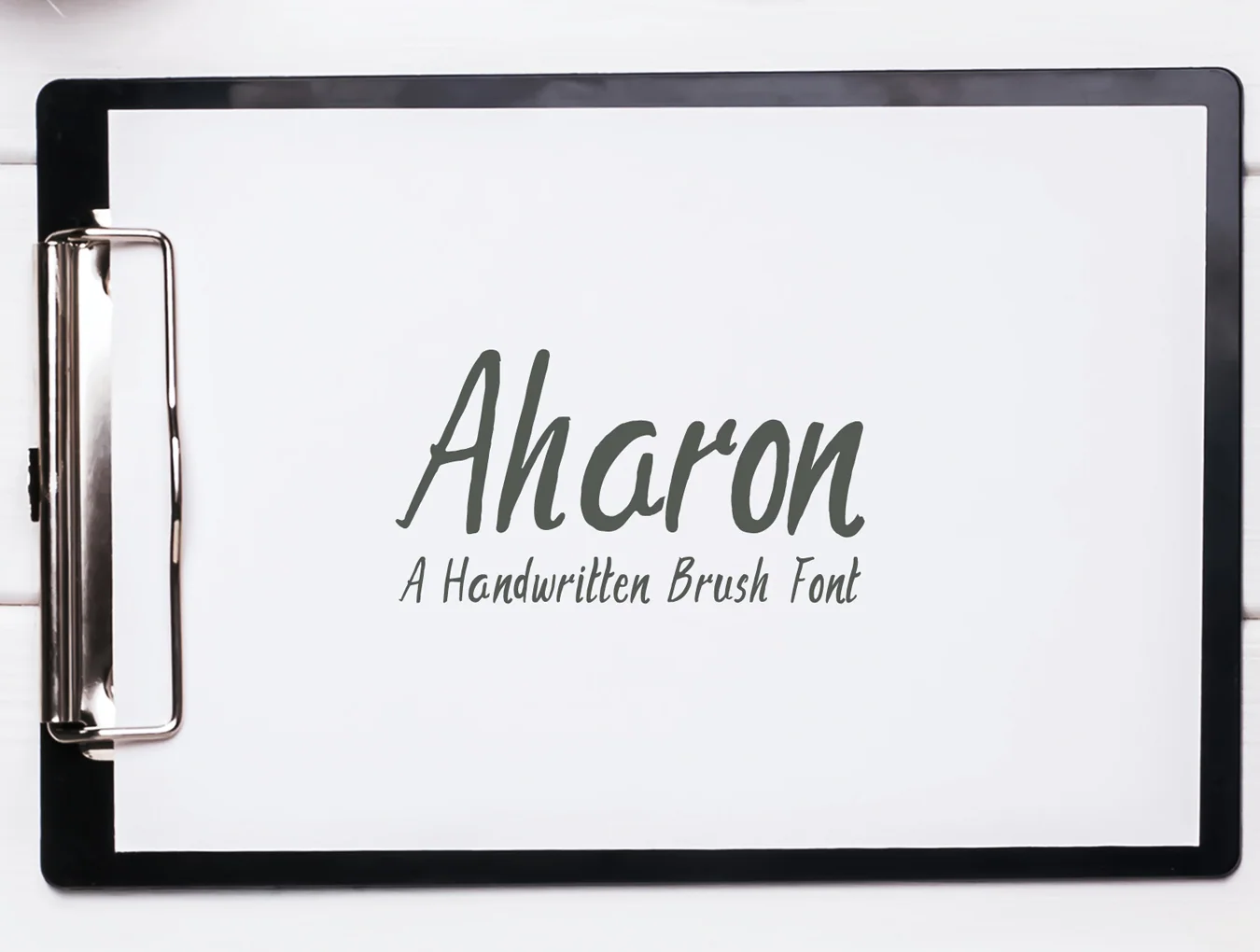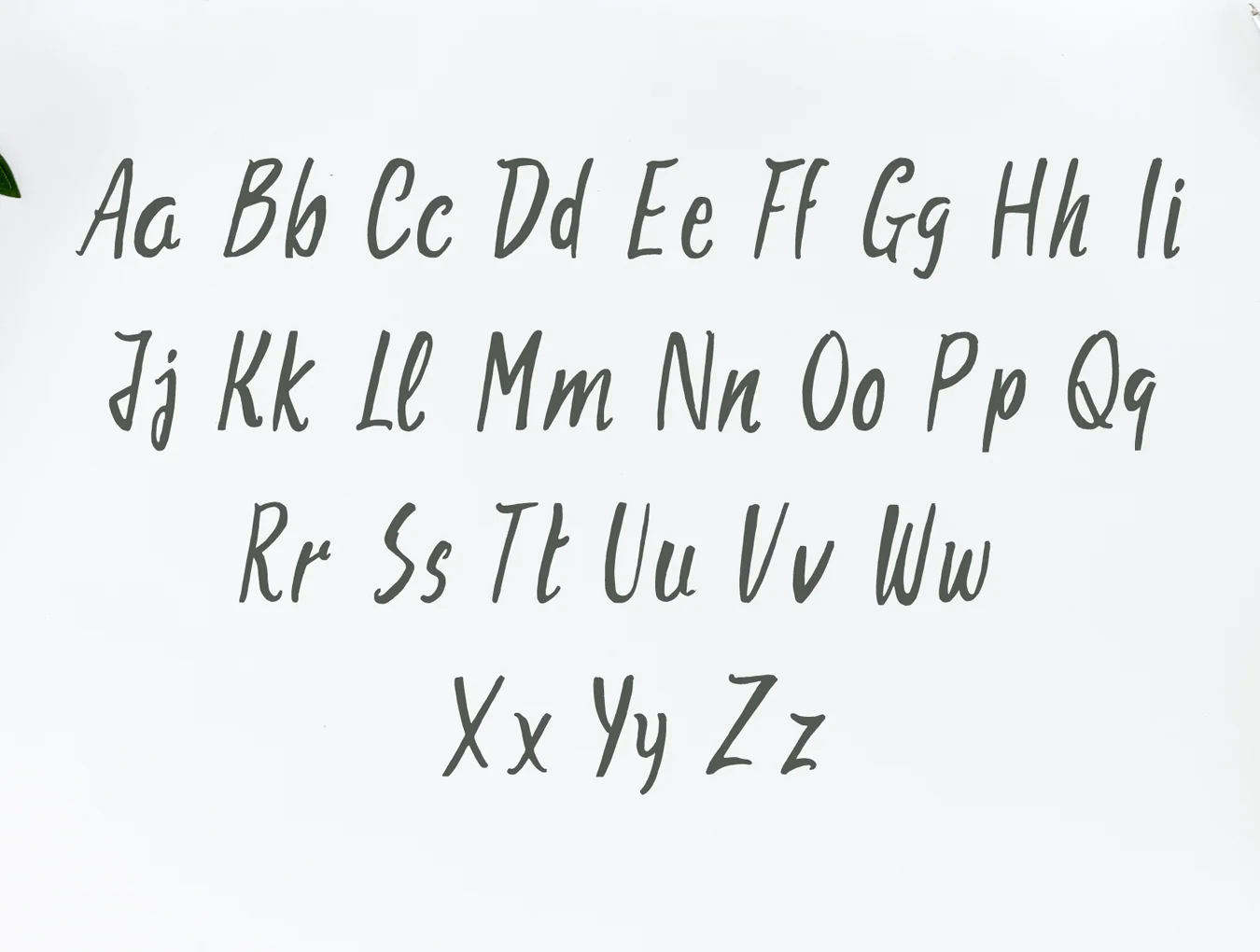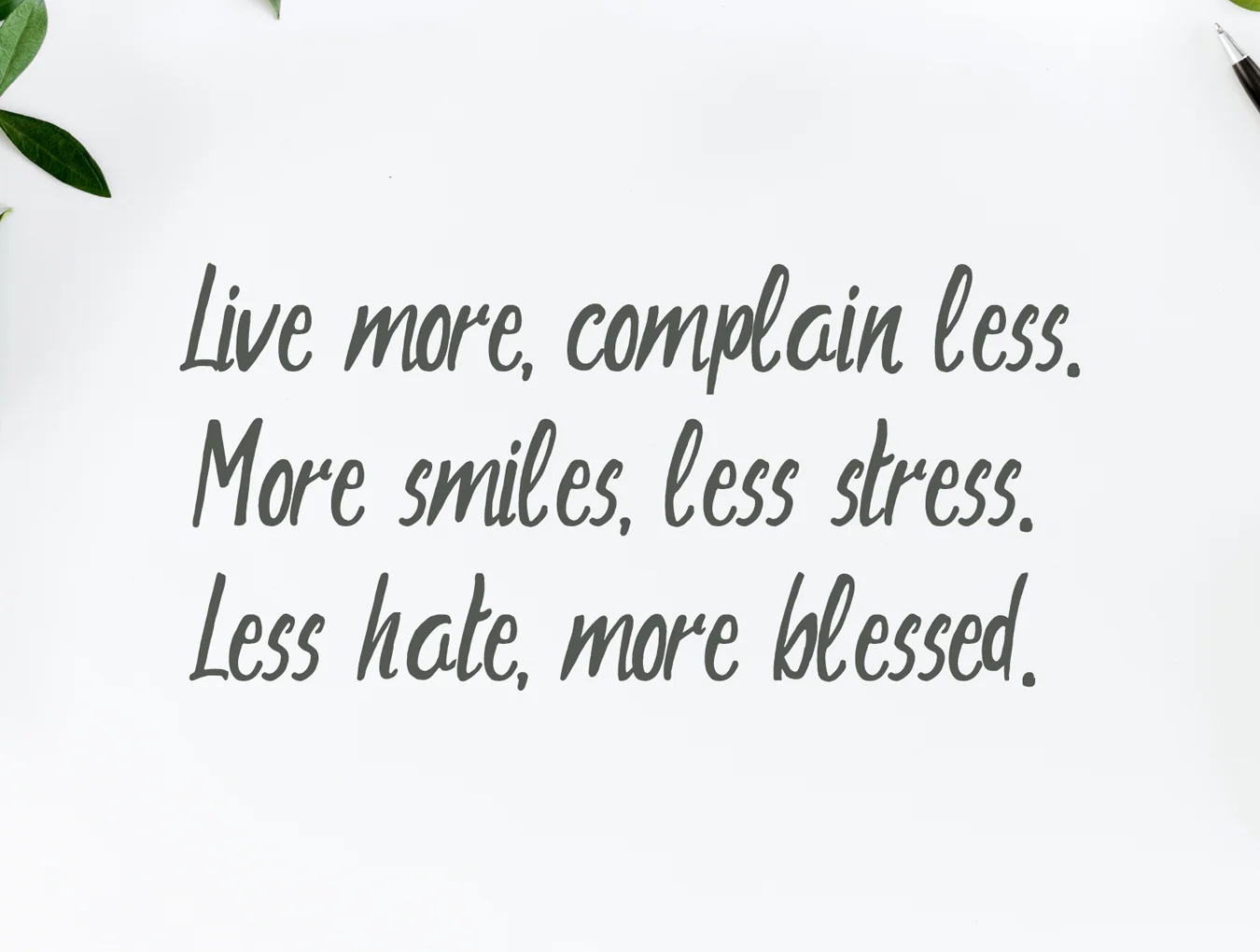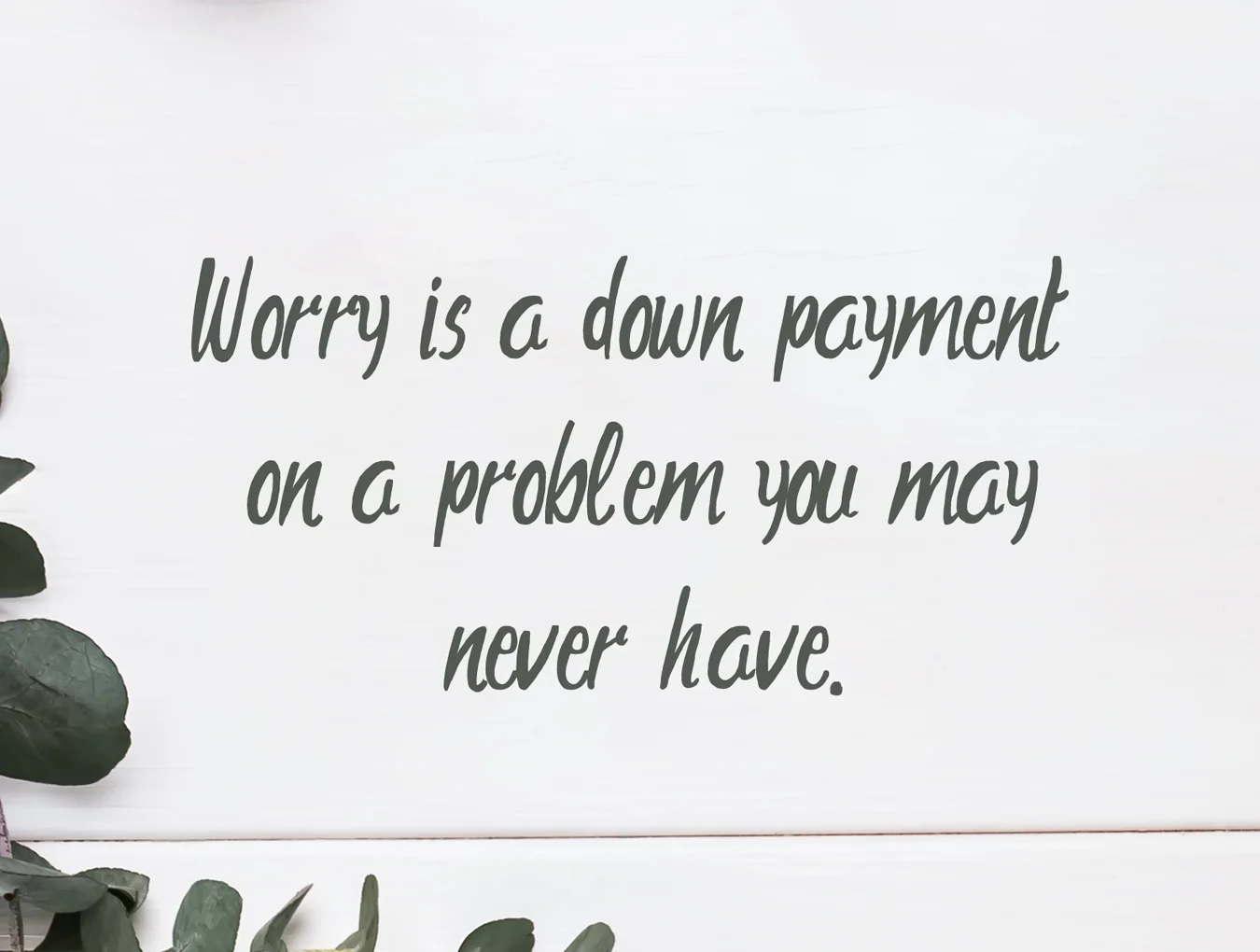
Aharon Brush Font
Hand-drawn typeface
147 included glyphs
Standard regular weight
Aharon is a contemporary upright brush font with a hand-drawn feel. Its distinctive style suits many creative projects, including prints, logos, signatures, quotes, badges, labels, headlines, banners, posters, T-shirts, magazines, packaging, blogs, websites, promos, products, and templates.